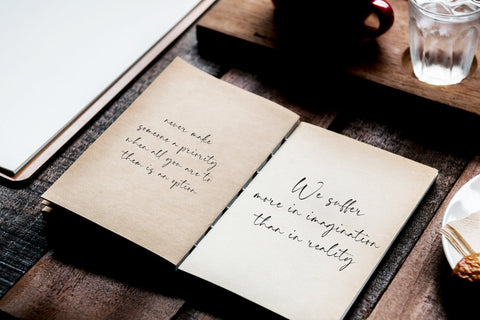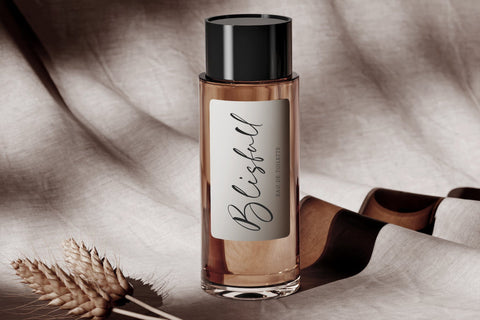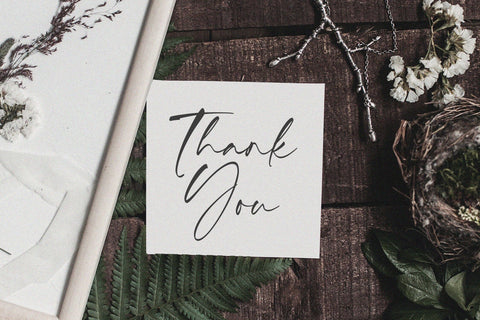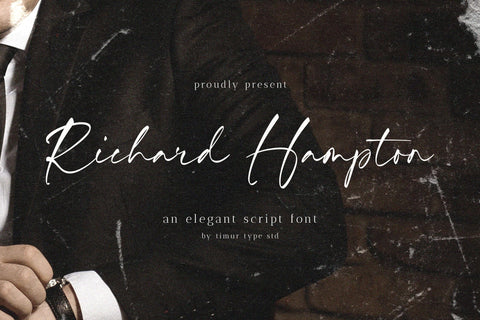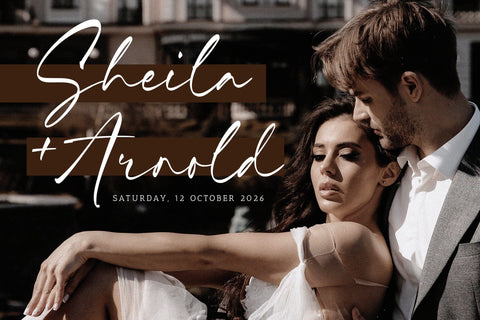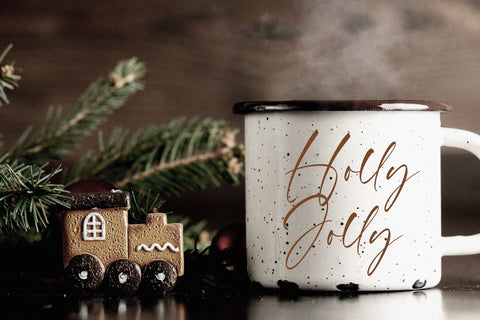
Richard Hampton - Elegant Script
Introduced by Timur type
Proudly Present Richard Hampton - Elegant Script
The display font that I created displays small Latin-shaped lines, giving it an elegant and distinctive appearance. This font resembles the lines of a Latin hand, and the addition of an exquisite finishing swath. With intricate details and subtle strokes, it adds a touch of sophistication and elegant style to any design or text it is applied to. Its subtle and individualistic nature makes it perfect for creating attention-grabbing headlines, logos or other elements.